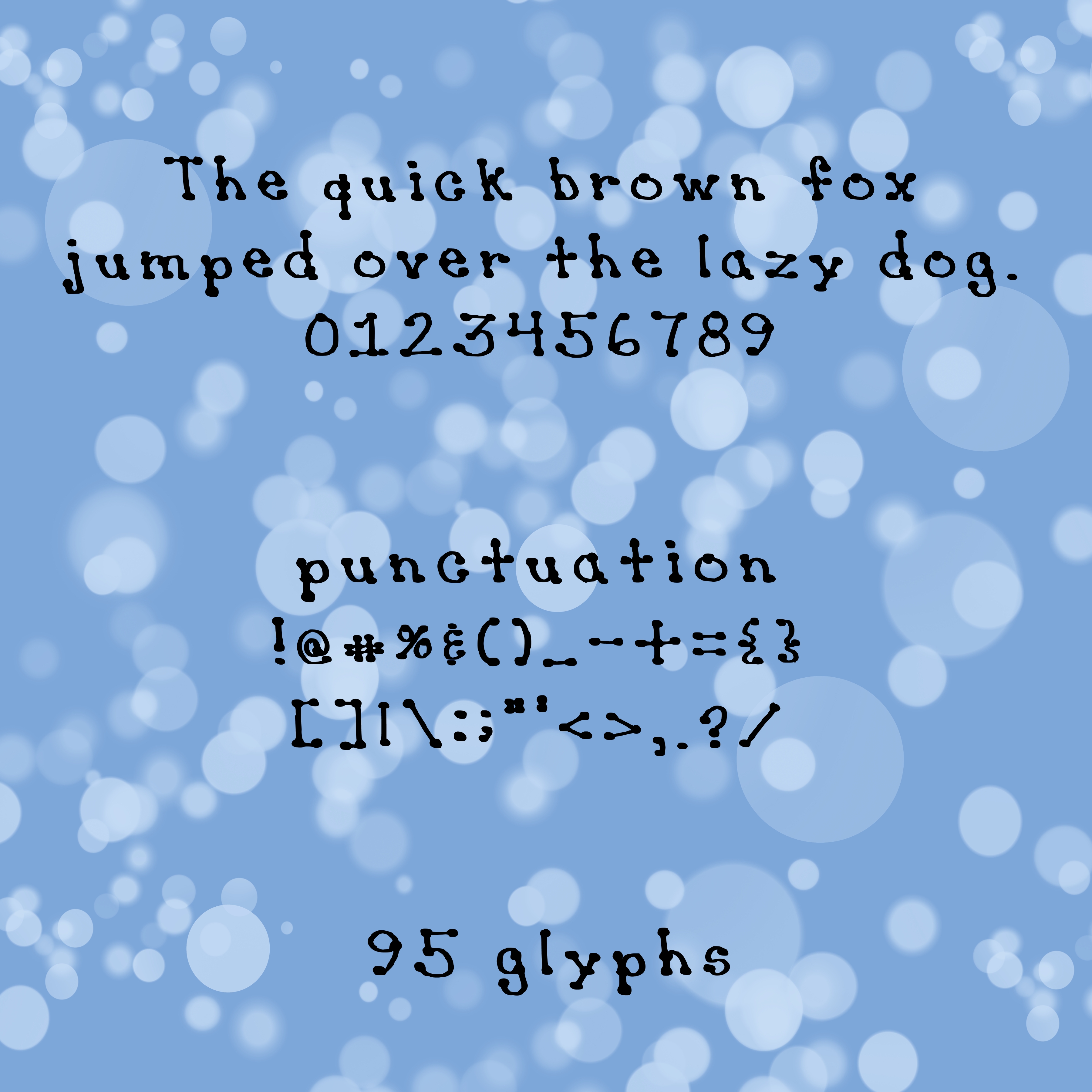
Introduction to Party Dot Font
Have you ever found yourself in the midst of a creative project, frantically searching for the perfect font to bring your design to life? The hunt is over, as we’re excited to introduce you to the Party Dot Font – a fun, handwritten font that’s sure to add a touch of personality to any design.
This charming font features all capital and lowercase letters, numbers, and most common punctuation, making it an ideal design resource for anyone looking to add a playful twist to their work. With 95 glyphs in total, the Party Dot Font offers a wide range of creative possibilities. And the best part? It’s completely free to download, making it an accessible and valuable addition to any designer’s toolkit.
Key Features of Party Dot Font
- High-quality design resource ideal for creative projects and party themes.
- Perfect for designing party invitations, decorations, and other festive materials.
Honest Review: Party Dot Font
The Party Dot Font is a versatile design resource that can be used for a wide range of projects, from social media graphics to website headers. One of the standout features is its transparent background, which makes it easy to customize and layer with other design elements.
- Only available in a limited number of font styles
- May not be suitable for complex or large-scale design projects
Overall, I’m impressed with the Party Dot Font and would definitely recommend it to fellow designers looking for a high-quality design resource. While it may have some limitations, it’s a great addition to any design toolkit.
Party Dot Font
Tips for Getting the Most Out of Party Dot Font
Experiment with different font sizes and colors to create a unique look. Use the Party Dot Font in combination with other design elements, such as graphics and images, to add depth and interest to your design.
The Party Dot Font is ideal for a variety of creative projects, including party invitations, social media graphics, branding materials, and more. Use the font to add a touch of fun and whimsy to your designs and make them stand out.